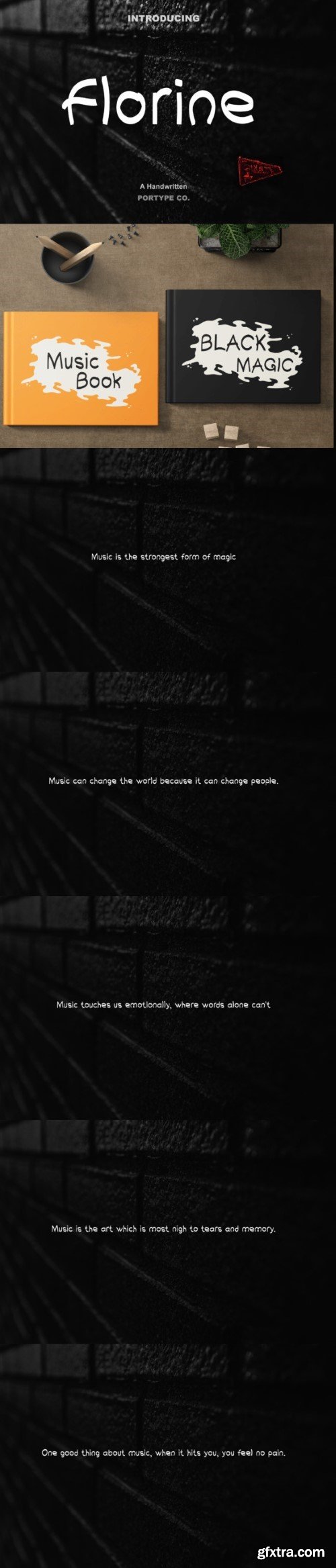
Florine is a beautifully crafted handwritten font that embodies the essence of musicality in its style. Each character exudes a sense of rhythm and flow, reminiscent of musical notes dancing across a staff. The font’s handwritten nature brings a personalized touch, as if each letter was penned by a passionate musician, creating an organic and expressive feel. The graceful curves and varying stroke widths in “Florine” evoke the fluidity and dynamism found in music, mirroring the movement of melodies and harmonies. Its playful yet elegant demeanor reflects the creativity and artistry of musicians, making it an ideal choice for projects seeking a blend of sophistication and a lively, artistic vibe.